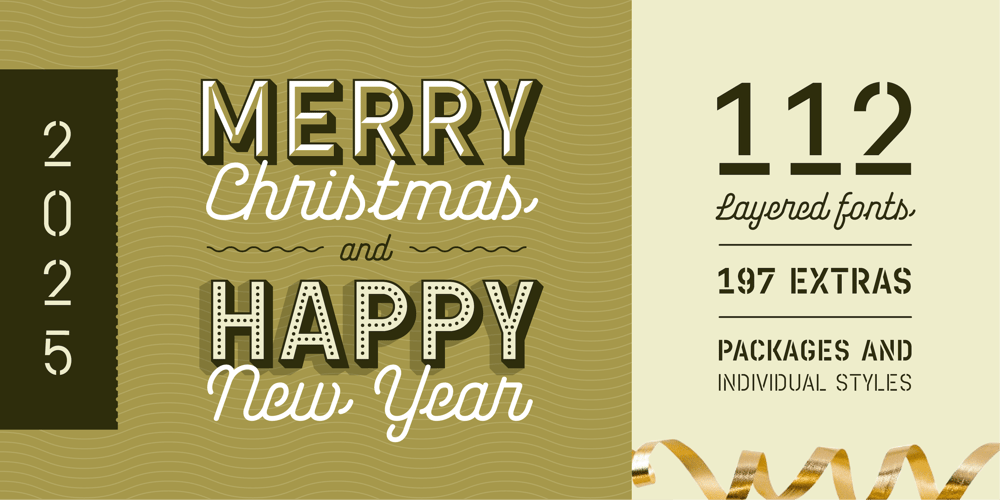
Chamelton Font Family was designed by Alex Khoroshok and published by Alex Khoroshok. Chamelton contains 113 styles and family package options. Chamelton, a vast layered font family, provides a creative spectrum through layers, colors, and weights, including 109 Sans Serifs, 3 script weights, + 198 extras.You can use the family as a complete design kit or a component of your work. Most styles are stand-alone fonts, but some layers work only in combination.Creating a multi-colored layered font is simple and compatible with any layer-supporting graphic software, including Adobe Suite, Sketch, Figma, etc.See Specimen PDF for more details.